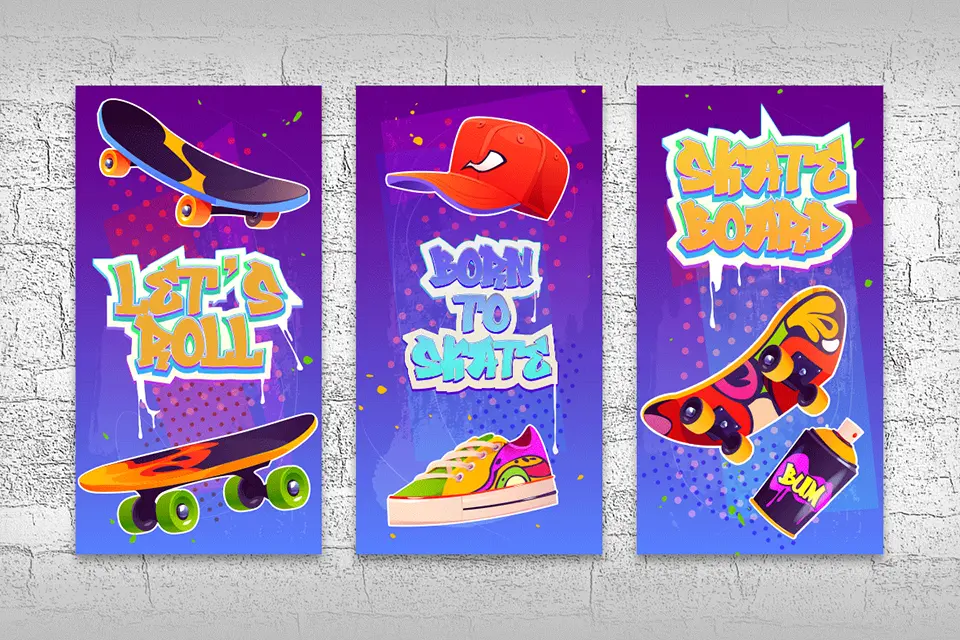
Streetfunk Graffiti Font
Streetfunk Graffiti Font reimagines urban typography with a sleek, contemporary edge, blending modern design principles with raw street art energy. Its sharp, dynamic letterforms feature clean geometric lines and subtle asymmetrical details that capture the spontaneity of graffiti while maintaining refined readability. The font balances bold, angular strokes with fluid curves, creating visual tension perfect for projects demanding both urban authenticity and polished execution. Optimized for logos, event posters, and digital branding, StreetFunk works equally well in monochrome minimalism or vibrant color schemes. This versatile typeface bridges underground culture and mainstream design, offering a fresh take on graffiti aesthetics without compromising professional appeal.